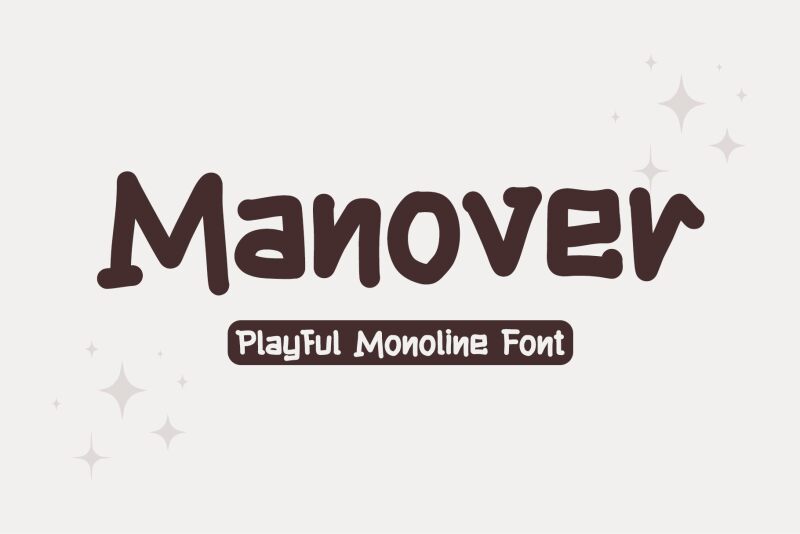
Manover Regular
Manover, crafted by the brilliant Letterafa Studio, is an exquisite handwritten font that boasts a sleek monoline style. Its semi-bold weight exudes confidence and sophistication, making it a perfect fit for a variety of projects. Embrace its elegance in wedding invitations, where it adds a touch of personal charm.
Or utilize its professional flair in branding materials to create an impactful identity. Manover effortlessly transforms any project into a visual masterpiece with its seamless curves and flawless strokes. Let this captivating font elevate your designs and leave an everlasting impression on your audience.